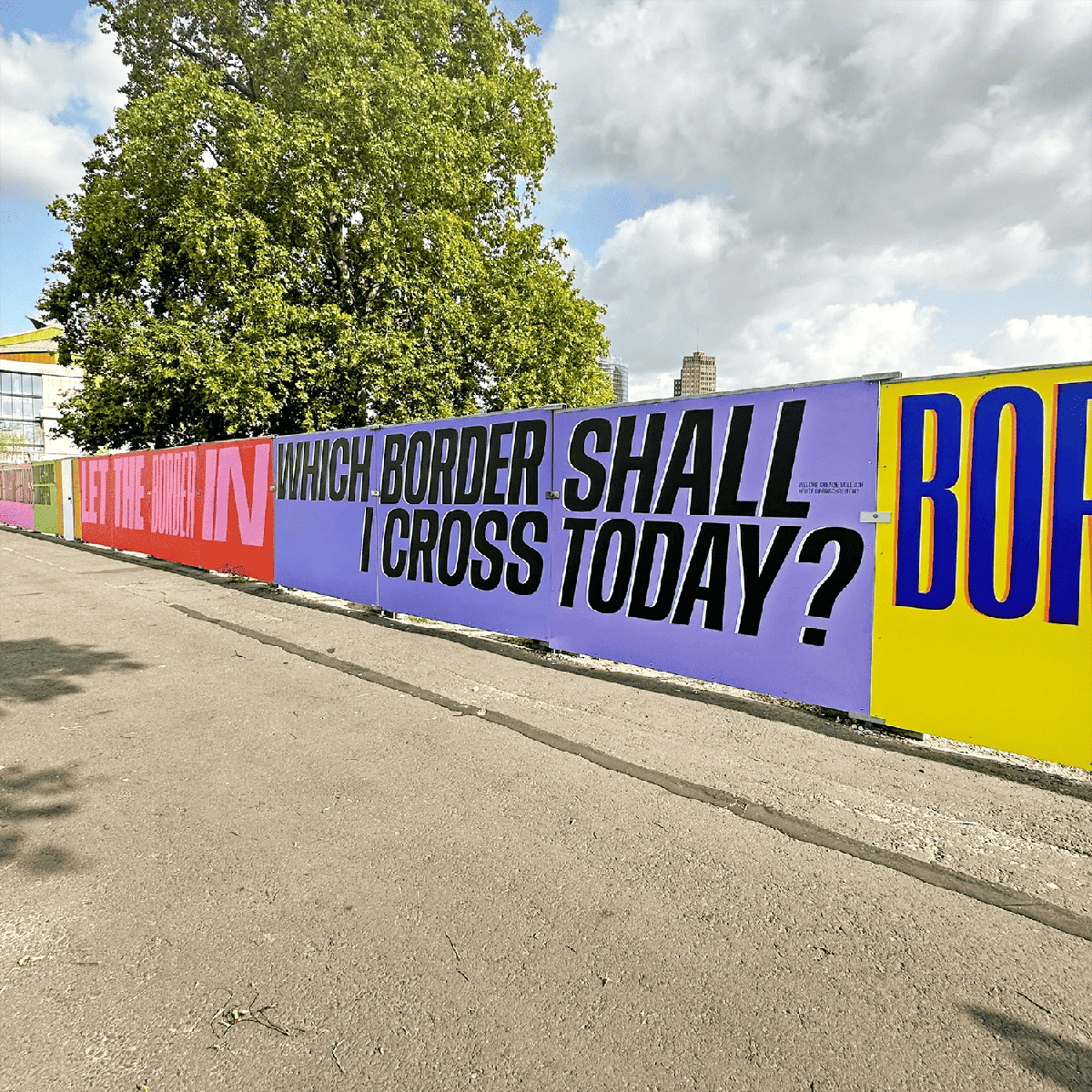
Q&A Ariane Spanier
Biography Ariane Spanier is a Berlin-based graphic designer, originally from Weimar, Germany. She studied visual communication at the Art Academy Berlin-Weißensee and later opened her own studio in Berlin. Ariane's work focuses on typography and spans print, identity, and digital design, primarily for cultural clients. Spanier is the creative director and co-editor of Fukt, a magazine for contemporary drawing. Her award-winning work has been widely published, and she is a member of AGI (Alliance Graphique Internationale).
Interview
What is your favorite way to start a day?
Ariane Spanier Sleeping in. While every single successful person in the world seems to be an early riser, I am wired to be a night person since I was 15. So far nothing could change that. That’s possibly the biggest reason I started out on my own almost immediately. If it’s the days of the week my collaborators come in to the studio we chat about what there is to do, or how the weekend was, which shows we’ve seen, whatever is on, then we would maybe start half an hour later to work. Then checking client emails or I jump right into what I had left the day before. I almost always had my studio space at home, we have an apartment connected to the studio space. I sometimes dreamt about a totally separate studio. But for long it has made family life a lot easier, when my 2 daughters were small it kept me flexible, I saw them way more, than I would have if I would be further away. If they were sick, I could take care of them in between while the studio was running. There were/are many advantages. On top of that it keeps costs down as well, which is great in this profession, keeping some pressure at bay. When I started out I wasn’t so bound to a space and just took my laptop anywhere. But I have always needed my colour books and paper samples and cutting materials, as I still work quite a bit in print as well, so there are things to print, to fold, to test, to spray. This can be tricky if it’s not a well set up space.
Do you listen music?
Ariane Spanier I stopped listening to music while I work a few years ago, only if I do a little more repetitive work, something that doesn’t need too much thinking and when I am alone. Often it’s a lot of conversations with my staff, writing emails, thinking about new concepts, for some reason music started to be distracting for that.
Do you read news?
Ariane Spanier Right now I am trying to reduce it substantially because it’s not making me feel good. But of course I want to stay informed, so I don’t really manage. I do listen to podcast-like news of the nytimes, guardian, zeit, bbc… (if i am alone, not writing emails or answering interview questions)
“While every single successful person in the world seems to be an early riser, I am wired to be a night person since I was 15. So far nothing could change that. That’s possibly the biggest reason I started out on my own almost immediately.”‍
– Ariane Spanier
What do you think of social media platforms today?
Ariane Spanier I only use instagram and it’s no fun anymore. I do post about my work, but it’s not enjoyable to look at in general because of the upped commercials flooding in. Pinterest as well sometimes, but often it’s a way to check that a specific idea hasn’t been done before but all these are rabbit holes and better to avoid.
What do you do to evade yourself from work?
Ariane Spanier Travelling, taking walks, seeing exhibitions, going to see a theatre play, meeting friends for dinners is what I do when I don’t work.
You prefer work in a team or alone?
Ariane Spanier I need both, I enjoy the exchange on the days of the week with the other designers in the studio, but I need a few days alone as well for concentration and concepts. In most cases I start to think about new projects and concepts alone, then we discuss it over and continue from there and bounce a little back and forth.
Do you ever feel "too comfortable" in a certain style, project, field, or medium?
Ariane Spanier I am constantly doubting every single thing I do until the very end of each project. In parts i think its necessary because it's a constant evaluation process while I am at something, I basically try to find the weak spots to be able to eliminate them. But it can make work feel hard at times. If I would feel too comfortable — it would make me very uncomfortable. That’s not saying that I am always innovative — I’d wish. I work a lot in the cultural field, and that is a quite cozy area for graphic design — so I do allow for a bit of comfort.
Does AI change the way you work as well your relationship with your clients?
Ariane Spanier Not yet really. I am still lucky to not consciously having lost clients over AI, but who knows. I haven’t found a conceptually meaningful way to use it yet for visual work because it’s neither an aesthetic I use want to achieve, nor am I a designer producing images very often when working with typography, but most of all it’s really not as satisfying. I want to keep my brain and my imagination and my making process going and will do as long as human design is wanted. It doesn’t mean I won't find use of it in the future, but so far on the visual side — no. But I can enjoy discussing concepts with GPT, it can certainly give some valuable input, and it also starts to be more helpful now by providing some file types or technical support. Many applications having implemented more and more AI aspects in their tools, so I am working with it whether I intend to or not. Of course I use GPT for text (not for this interview though!), but knowing that a single request to GPT uses a bottle of water for one text it gives you, (necessary cooling of the data centers) — and a lot more energy than a google search — makes me think twice as well. This is a serious issue on top of everything else implied with it.
What are your thoughts on the trend of grotesque and geometric sans-serif?
Ariane Spanier Well, there is always a reason for trends, the simplicity and cleanness is something that seems to attract people so much, I agree. I am in it myself, part of me falls for that too, an immediate positive reaction to a lovely designed grotesque typeface, used in a very minimal way. But the other part wants to do the more special crazy stuff. I don’t decide, I switch, I want it both.